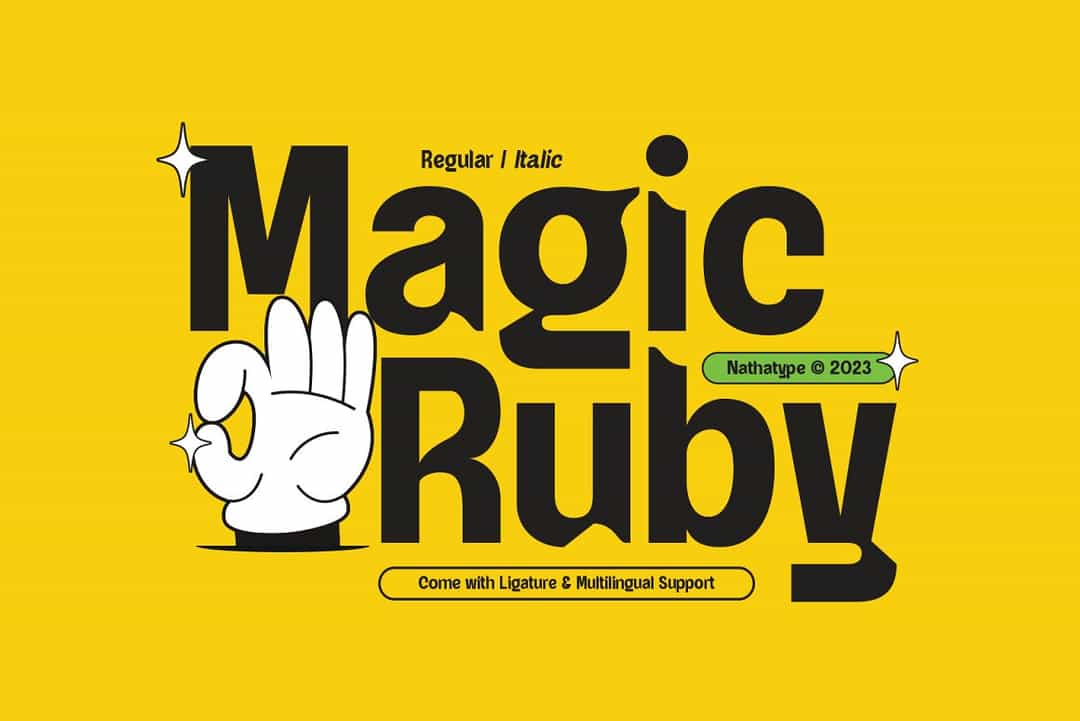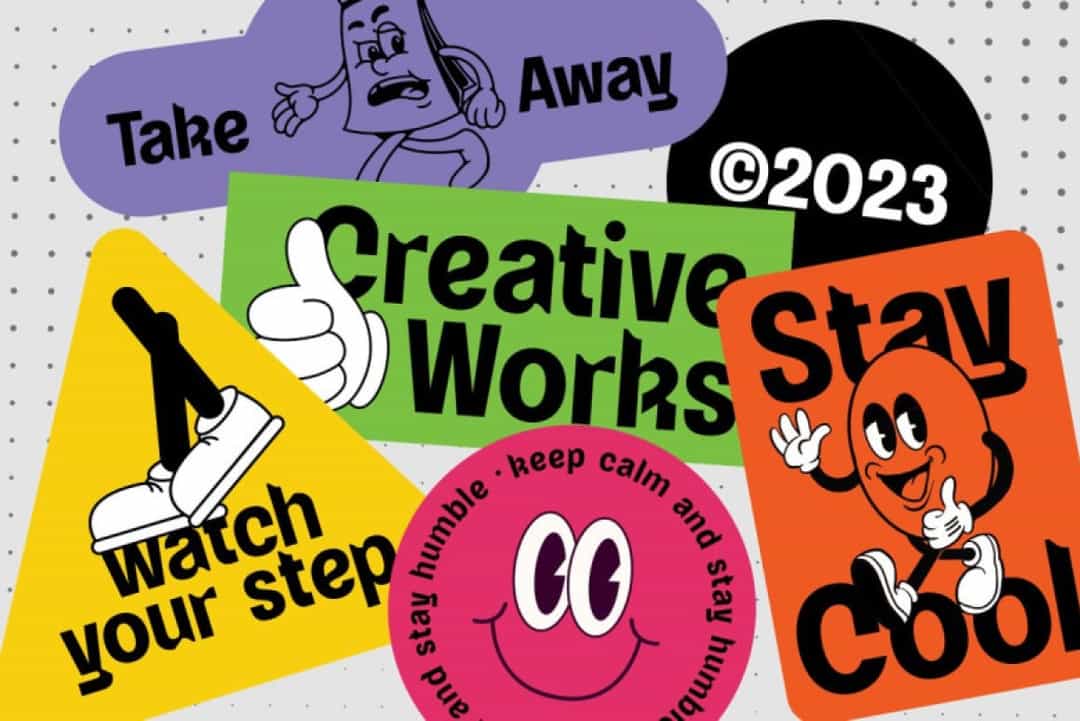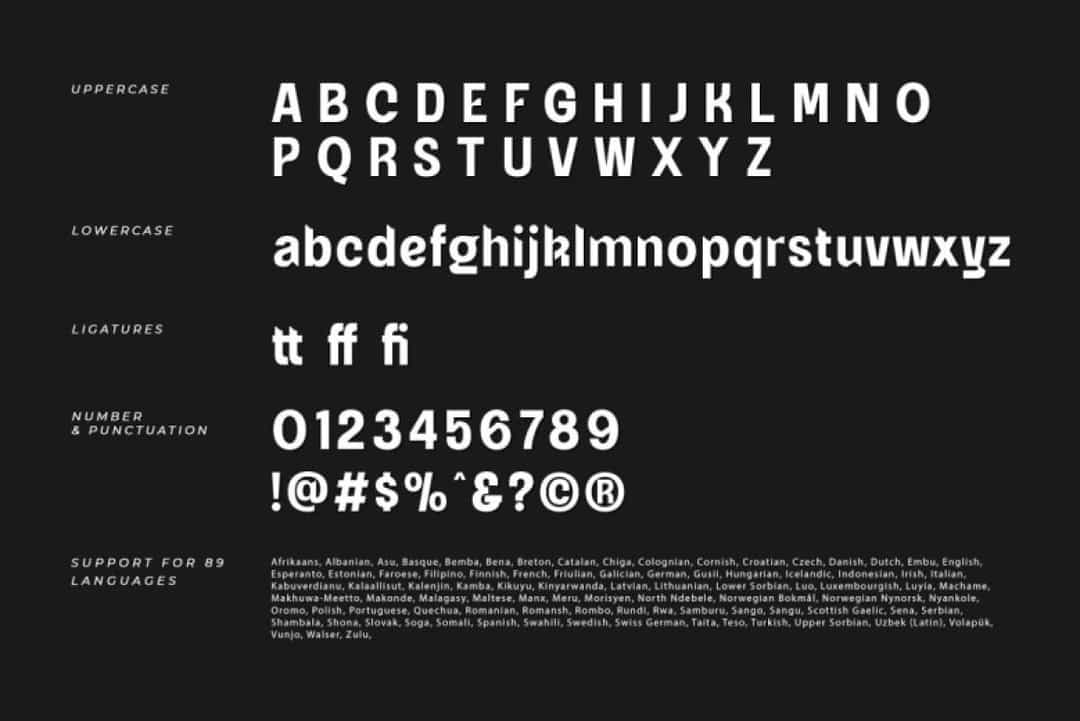
Magic Ruby is an eye-catching display font available in regular and italic variants, created using consistent proportions for letters and high contrast to ensure effortless reading experiences. With its captivating beauty, this typeface will add an aura of mystery to any project. Visual harmony and equilibrium throughout this font is ensured through consistent letter proportions while each character’s careful design guarantees uniformity ensuring an effortless reading experience.